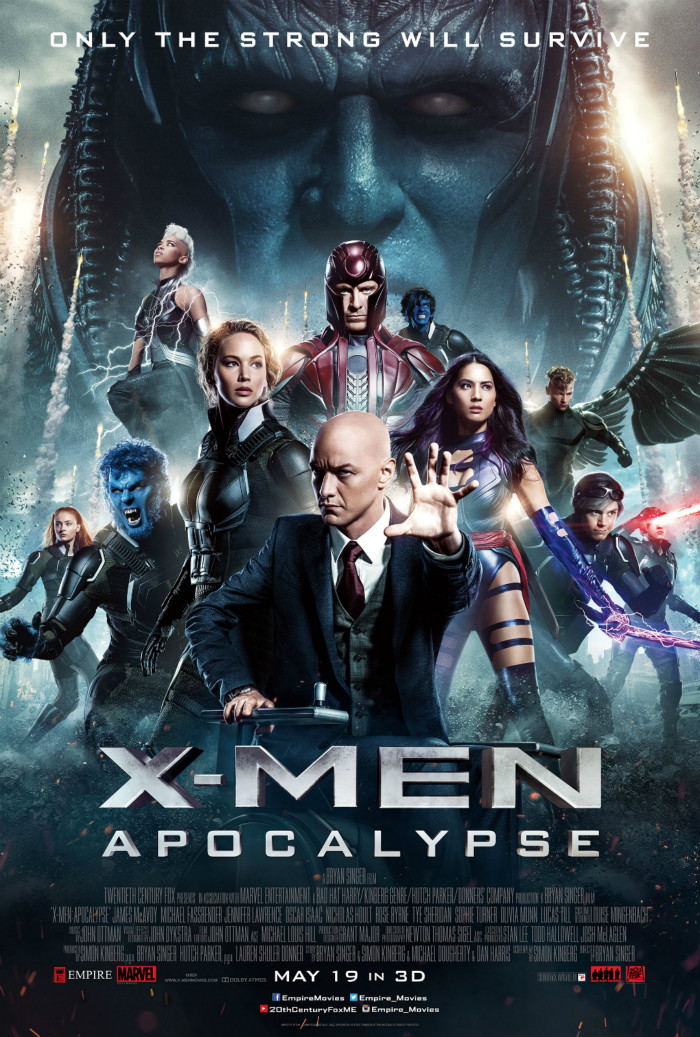
X-Men Apocalypse Font
ActionX-Men: Apocalypse is a 2016 American superhero film directed and produced by Bryan Singer. The film is based on the fictional X-Men characters that appear in Marvel Comics. In the film X-Men attempt to stop En Sabah Nur/Apocalypse and battle his band of mutants.
The poster's title, X-Men: Apocalypse, is written in Bank Gothic font. The "X-MAN" portion may differ slightly from Bank Gothic, but it was likely based on it. The middle arm of the "E" was lengthened, and very tiny serifs were added to the letter terminals.